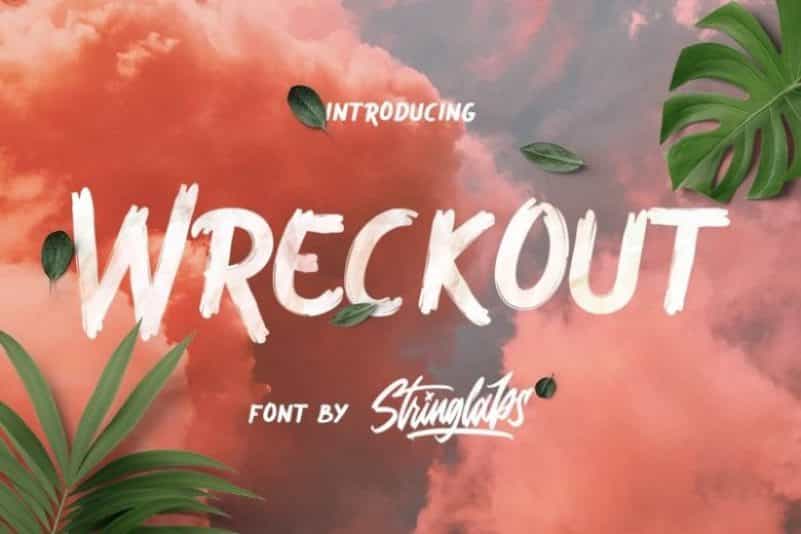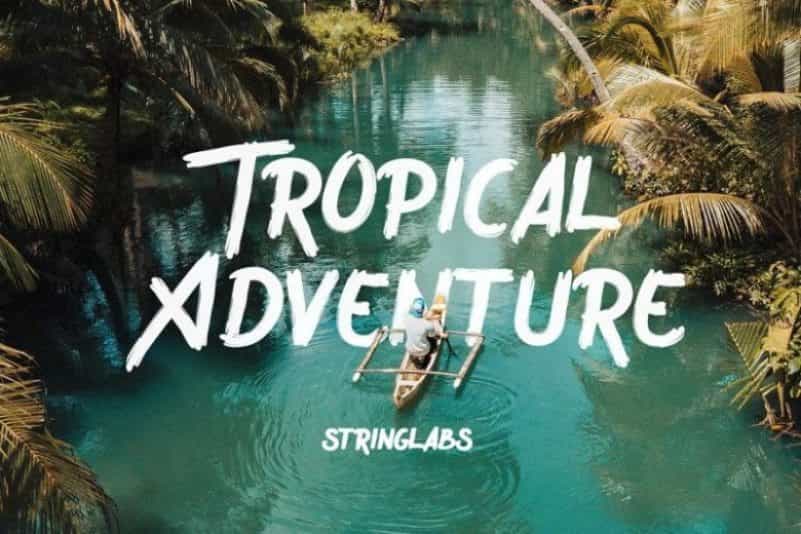
Discover Wreckout Font, part of the Brush collection—a versatile and unique font perfect for adding a personal touch to your projects. Download it for free and enjoy crafting designs with style, from invitations to social media posts. This font is available exclusively for personal use, giving you the freedom to create without limits. Unlock your creativity with Wreckout Font today!
Wreckout Font is best suited as a brush font which can be used and reused for any purpose including promotional material, handwritten quotes, product packaging, merchandise, and branding projects.